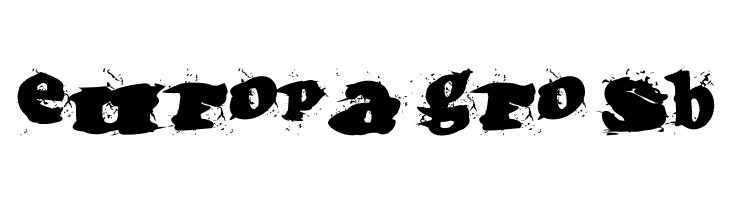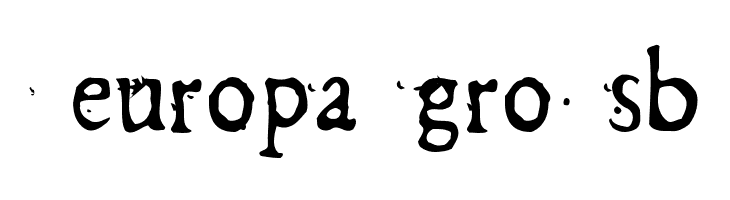
( Fonts by www.abecedarienne.com )
A distressed, grunge-style font with a bold, textured appearance.
( Fonts by Spork Thug Typography - Josh Wilhelm - www.lifewithouttaffy.com/taffy/blog )
A bold, distressed font with jagged edges and a rugged texture.
( Fonts by The Font Emporium )
A bold, hand-painted style font with expressive, irregular edges.
A decorative and distressed font with intricate patterns and textures.
( Fonts by Daniel Gauthier )
A bold, distressed font with a grunge, graffiti-inspired style.
( Fonts by Barry Bujol - theoriginal19.blogspot.com )
A bold, decorative font with a grunge and distressed style.